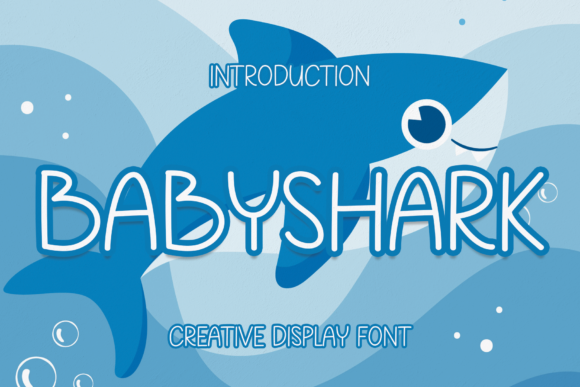
Introduction to Babyshark Font
Babyshark is an utterly clean sans serif font.
Featuring slim and neat characters and a modern style, this typeface is a great fit for a wide range of projects and creations .
Babyshark Font offers exceptional quality and versatility, making it a valuable addition to your design toolkit. Whether you’re creating for personal projects or commercial use, Babyshark Font delivers professional results.